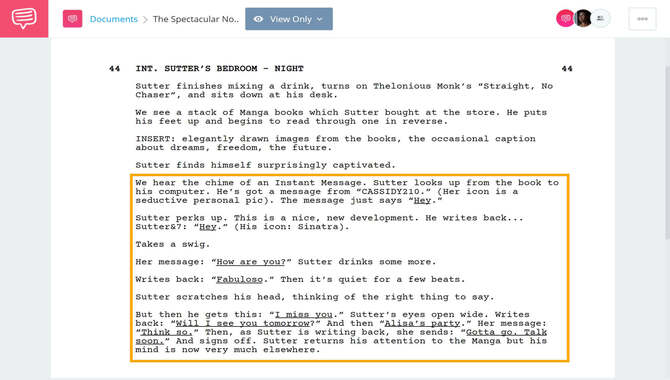
How To Use Screenwriter Fonts Effectively: A Complete User’s Guide
Screenwriter font is popular among writers and filmmakers for its unique style and readability. The film industry often uses this font, or Courier, for scripts and screenplays.
Its fixed-width design makes it easy to format text and ensures that each page has a consistent number of lines, which is essential for timing in film and television production. We’ll walk you through some essential tips for using a font that will make your script look professional and polished.
We’ve got you covered in finding the perfect font styles that match the tone of your screenplay and understanding how different fonts can enhance readability. So grab your popcorn and get ready to learn how to make your script shine with the power of fonts.
Tips For Using Screenwriter Fonts Effectively
Using screenwriter fonts effectively can enhance your screenplay’s readability and overall aesthetic. Here are some tips to help you make the most out of fonts. By following these tips, you can effectively utilize fonts to create a polished and professional screenplay that captures the attention of readers and industry professionals alike.
• Choose a professional screenwriting font: Several screenwriting fonts are available, such as Courier and Courier Prime, specifically designed for scripts. These fonts, which have a classic typewriter look and are widely accepted in the industry, are widely accepted in the industry.
•  Generally recommend using a font-size: Of 12 points for screenplays to maintain consistency. This ensures that the text is easy to read without too much space on the page.
• Utilize formatting features: Screenwriting software often includes automatic scene headings, character names, and dialogue formatting. Take advantage of these tools to ensure your script follows industry standards and is easy to navigate.
• Avoid excessive formatting: While using appropriate formatting for elements like action lines and dialogue is important, be mindful not to overuse bold or italicized text. Excessive formatting can distract readers and make your script look cluttered.
• Proofread your script: Before finalizing your screenplay, take the time to proofread it for any typos or errors in font usage. A clean and error-free script demonstrates professionalism and attention to detail.
How To Find The Right Screen Editor Fonts
Finding the perfect font for your screenplay requires careful consideration. Understand the purpose of these fonts in creating a professional script. Popular choices like Courier, Courier Prime, and Final Draft provide a polished look. Ensure that you prioritize readability so that your script is easily readable on paper and screen.
Consistency is key, so use the chosen font consistently throughout your screenplay. Experiment with formatting options and font sizes to enhance your script without distracting it from its content. Remember that selecting the right font is crucial for creating a visually pleasing and professional screenplay.
How To Use Different Font Styles In Screenwriter
Using different font styles in screenwriting can be a great way to enhance the visual storytelling of your script. While most screenwriters traditionally write screenplays in Courier font, a monospaced font that helps maintain consistent page lengths, writers can sometimes use different font styles effectively.
For example, you might use a bold font for important scene headings or character introductions to make them stand out on the page. Similarly, using italics or a different font style for voiceovers or internal thoughts can help differentiate them from the main dialogue. However, it’s important to use these different font styles sparingly and purposefully, as too much variation can distract from the overall readability of your script.
The choice of font for a screenplay can significantly impact the overall presentation and readability of the script. While there is no one-size-fits-all answer, it is important to consider factors such as legibility, industry standards, and personal preference when selecting a  font.
Screenwriter font are essential for creating an authentic and professional look in your scripts. You can make the most out of these fonts by following simple tips and enhancing the overall reading experience.
Additionally, finding the right font that aligns with the tone and genre of your script is crucial. Experimenting with different font styles allows you to create visual cues that enhance storytelling. Remember, using screen editor fonts effectively is about aesthetics, improving readability, and conveying the right emotions.
1.What Font Do Screenwriters Use?
Ans: Screenwriters often use Courier, particularly Courier Prime, as it has fixed-width characters for accurate page count estimates. Other popular fonts include Final Draft, Trelby, and Celtx. Following formatting guidelines and using the appropriate font size (typically 12pt) when writing a screenplay is crucial.
5.What Are Some Popular Screen Editor Fonts That Can Be Used?
Ans: The most popular font for screenwriting is Courier, but screenwriters also use Arial, Tahoma, and Times New Roman. Specialized software can automatically format the text in the correct font. Whichever font is chosen, it should be easily readable and meet industry standards.